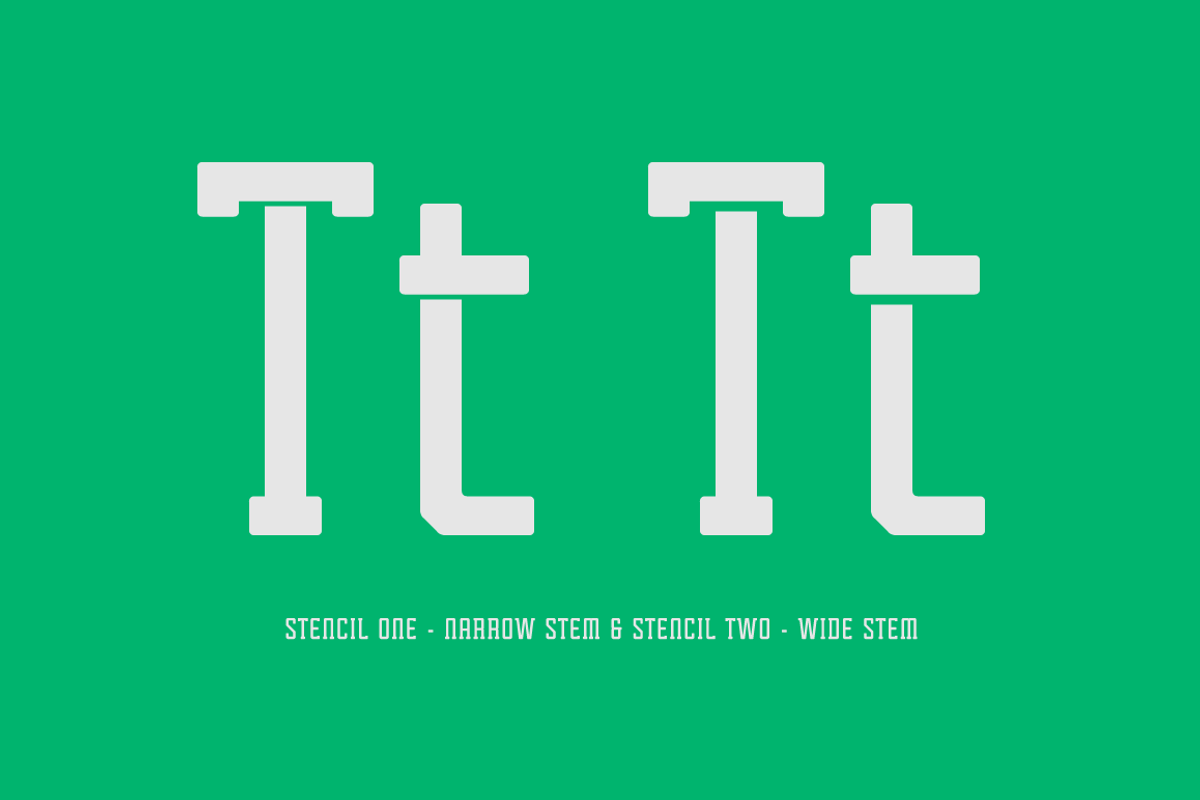
Tecnica Slab Stencil Font Family
Tecnica Slab Stencil Font Family by Graviton Font Foundry is a font selected for branding, posters, packaging, typography.
Tecnica Slab Stencil Font Family by Graviton Font Foundry fits naturally into Branding, posters, packaging, typography.